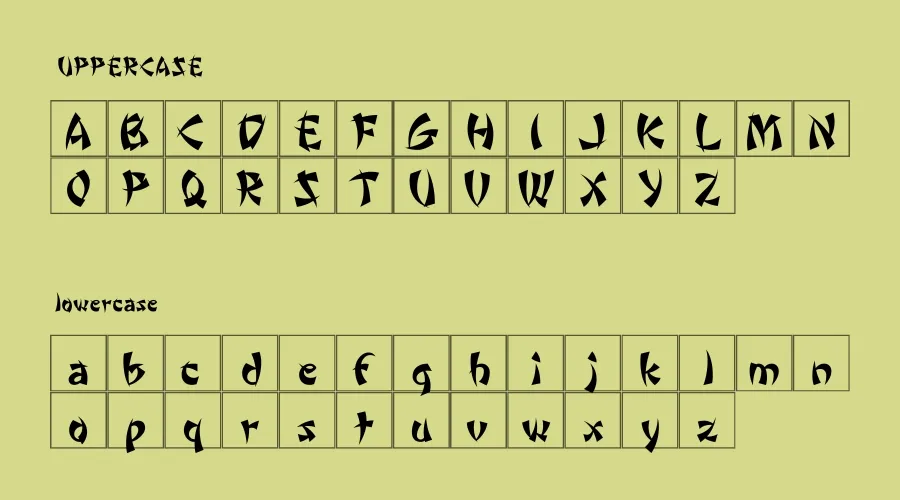
Wonton By Da Font Mafia Font
About Wonton By Da Font Mafia Font
Wonton By Da Font Mafia Font created by Da Font Mafia it is a fancy typeface. As well as having a readable texture and a unique appearance, this typeface is attractive.
The text style may be an awesome choice for any plan that needs an advanced and modern style. It is a clean and clear lettering style. All users have access to its copy-and-paste functionality. Many design applications, including Canva and Photoshop, are compatible with them.
As a result, your text and designs can be styled in an eye-catching manner. With this typeface, you can create charming and impressive designs.
You can get the biggest results by picking out this typeface from the family. Presentations, reports, banners, posters, content, product titles, etc. You can pair it with the combination of care pack font.
This typeface is often used to create stunning and readable results. It can be used anywhere where you want to create a new signature. And is perfect for logos, branding projects, homeware packaging, and all sorts of other lovely ventures that require a beautiful look.
Various institutions can use this font to create their logos. This typeface can be used for a wide range of projects, including eBooks, posters, banners, brochure layouts, and much more.
A lot of web designers, as well as graphic designers, used this attractive typeface for many projects, including in fashion magazines, newspapers, ads, and articles.
Its design can be used to create interesting covers, shop names, logos, and logos for shops, stores, and websites.  As well as branding projects, houseware designs, and packaging, the typeface is suitable for all types of projects. This font is very close to the trash butterfly font.
This typeface contains interesting glyphs which have sleek look. You’ll be able to have this typeface into a CSS record for creating eye-catchy content.
Name Wonton By Da Font Mafia Font
Designer Da Font Mafia
Style Fancy
Can I use Wonton By Da Font Mafia typeface for poster designs?
There is no problem using this design for a creative poster. Moreover, it can also be used to design wallpapers.
Is there any similar to Wonton By Da Font Mafia Font?
This typeface is similar to a large number of fonts, but a Grind Mafia Font is a great alternative.